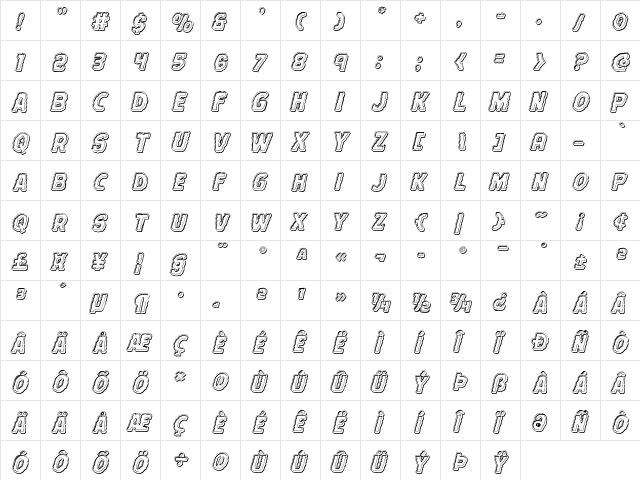
Terror Babble Engraved Italic Regular Font Preview
Design Context for Terror Babble Engraved Italic Typeface
Terror Babble Engraved Italic brings ornamental detail and strong personality to headlines and identities, where visual impact matters more than quiet functionality. The dynamic lean of this cut emphasises speed and emphasis in any layout.
Font Pairing: Pair with a clean neutral sans-serif for body copy to let Terror Babble Engraved Italic's character lead without overwhelming the composition.
Pro Tip: Treat Terror Babble Engraved Italic as the centrepiece of your typographic hierarchy. One strong heading set in a decorative face can carry an entire layout.